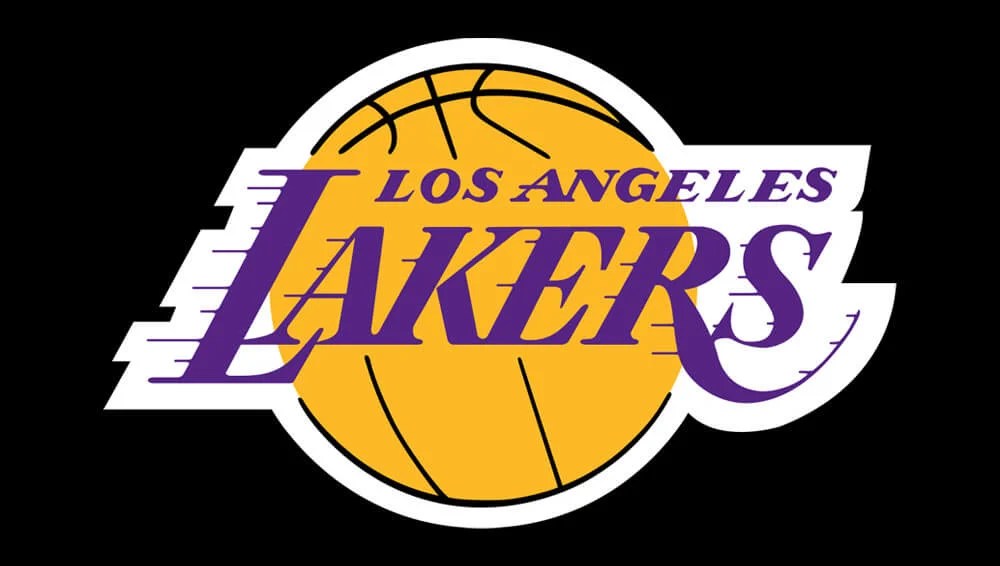
Lakers Font Number. The lettering for the lakers. Feb 20, 2019 at 12:12.
Web free lakers assets for true fans. It is suitable for creating text. Los angeles lakers jersey number font. This font has uppercase and lowercase letters, numbers, punctuation, and symbols. Feb 20, 2019 at 12:12. Web the lakers logo features the lakers logotype as well as the text “los angeles” on a basketball. Get the nba lakers font, logo, and jersey lettering instantly. Design like a champion and. The lettering for the lakers.
Feb 20, 2019 at 12:12. This font has uppercase and lowercase letters, numbers, punctuation, and symbols. It is suitable for creating text. Web free lakers assets for true fans. Get the nba lakers font, logo, and jersey lettering instantly. Web the lakers logo features the lakers logotype as well as the text “los angeles” on a basketball. Feb 20, 2019 at 12:12. Los angeles lakers jersey number font. The lettering for the lakers. Design like a champion and.